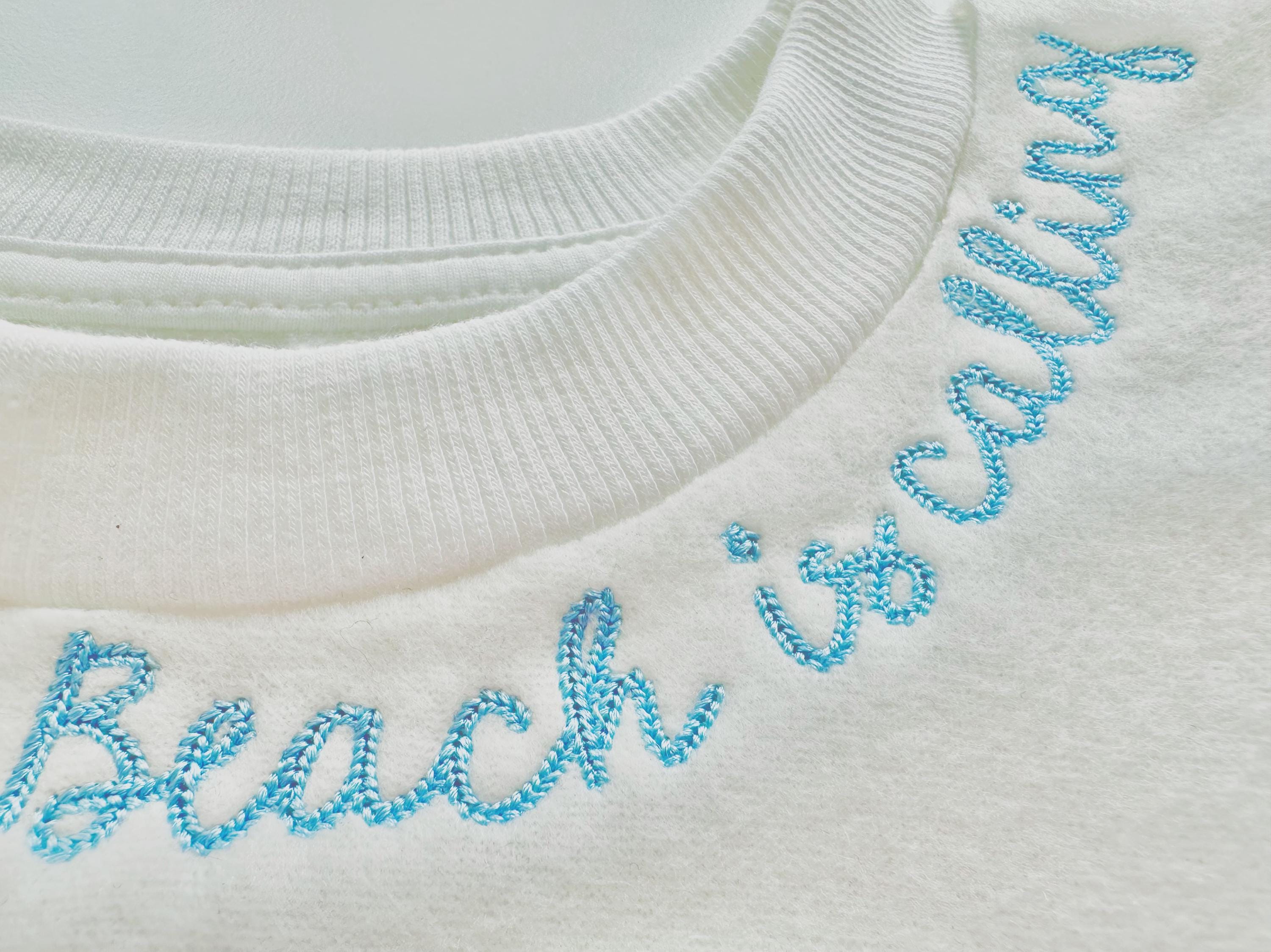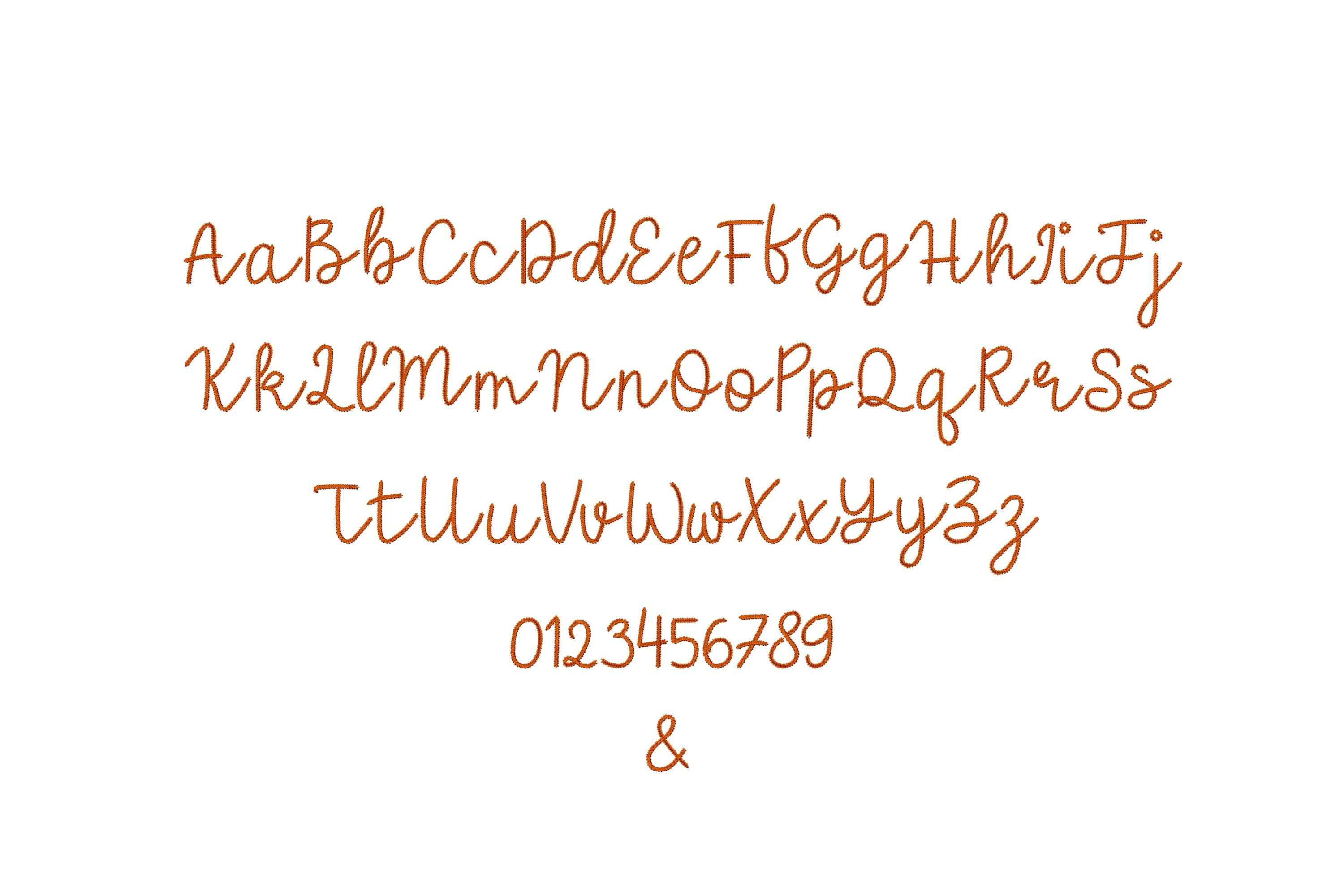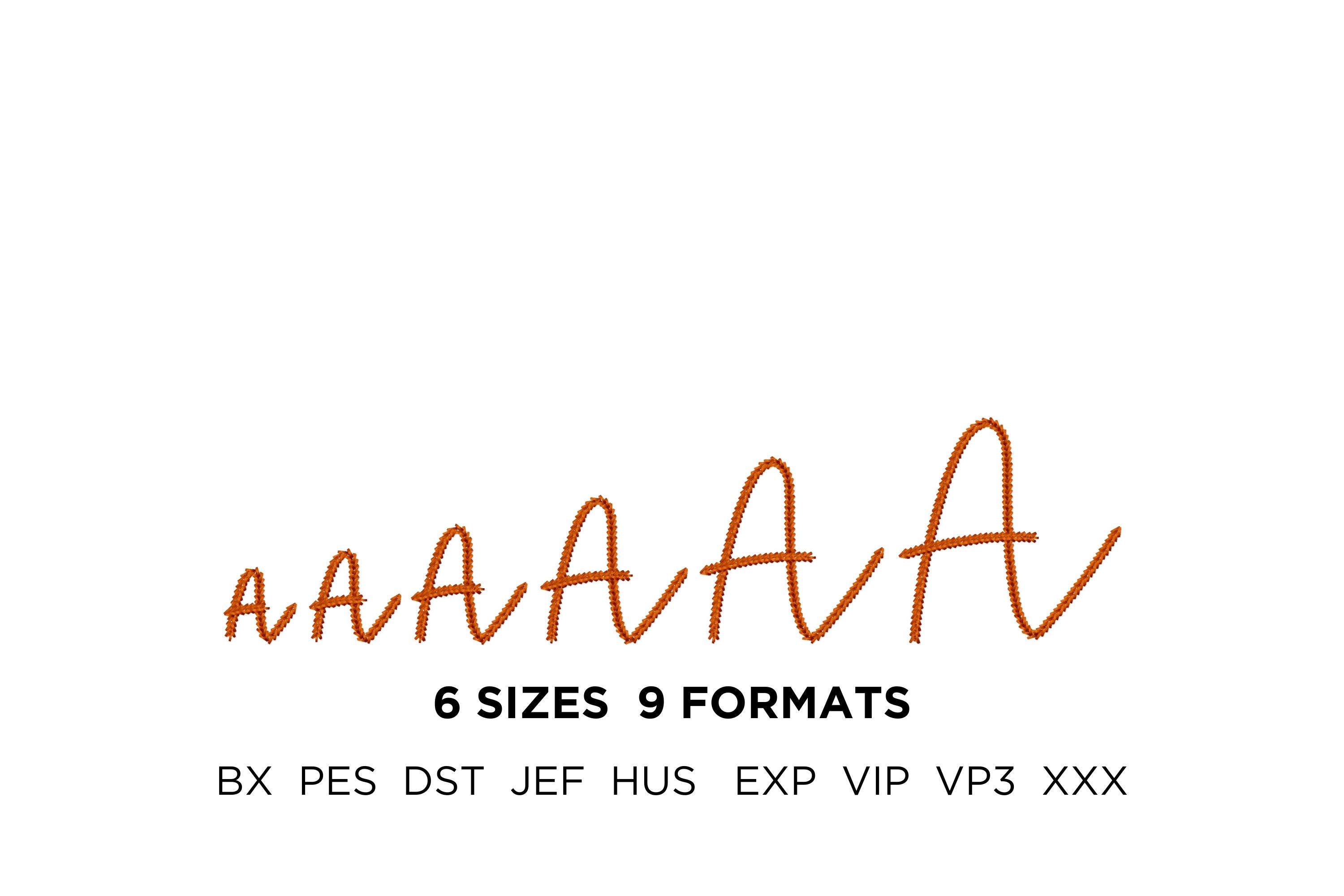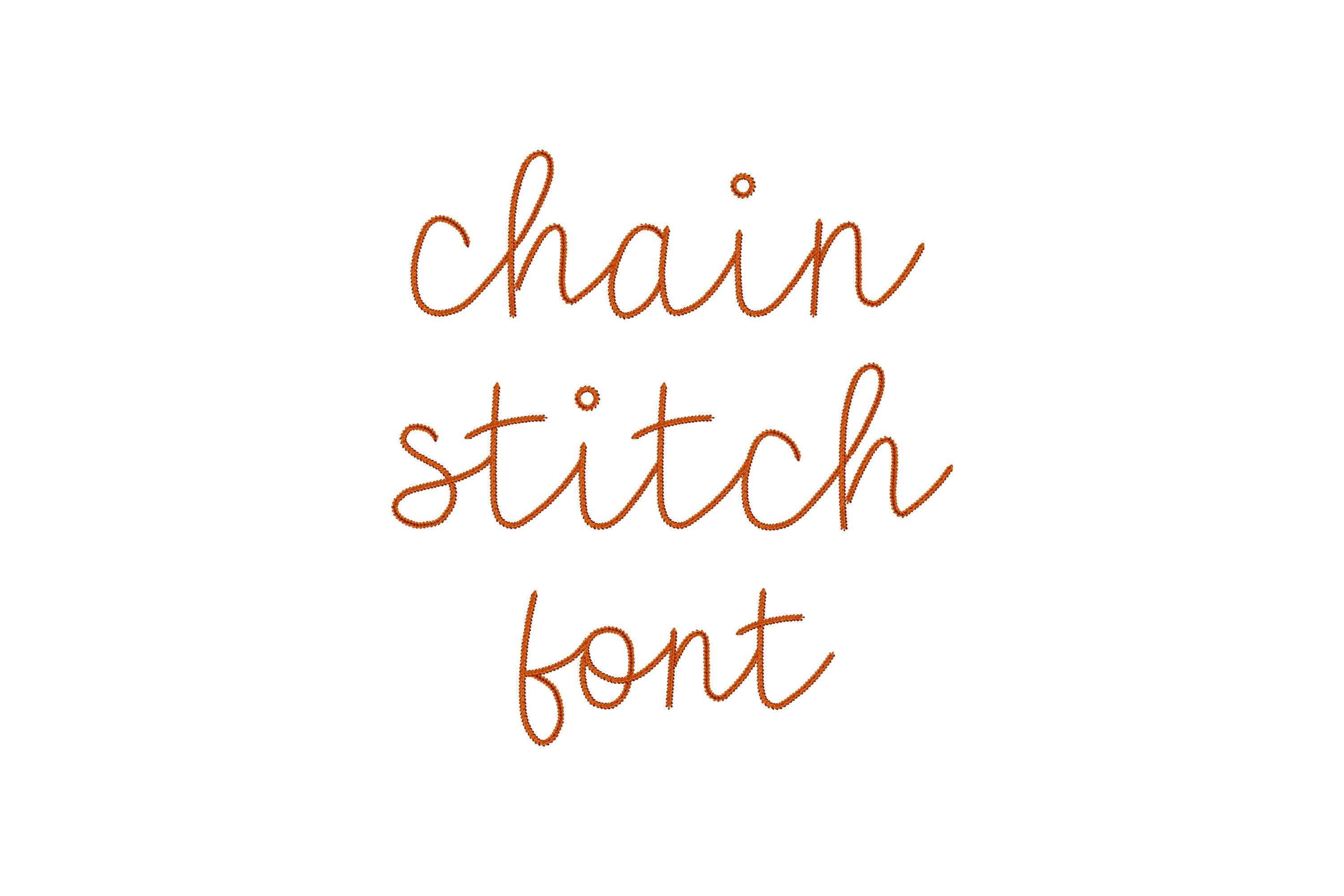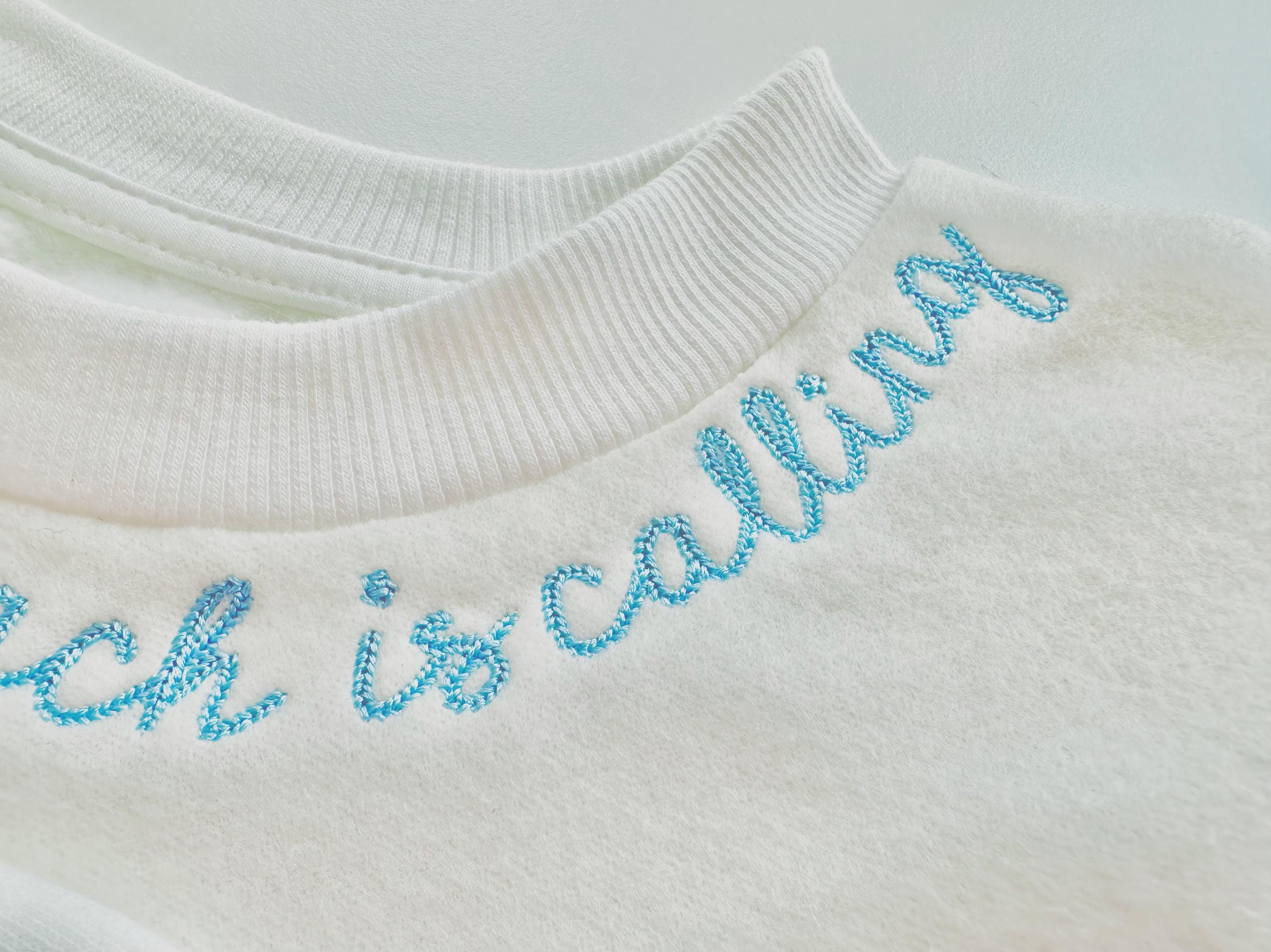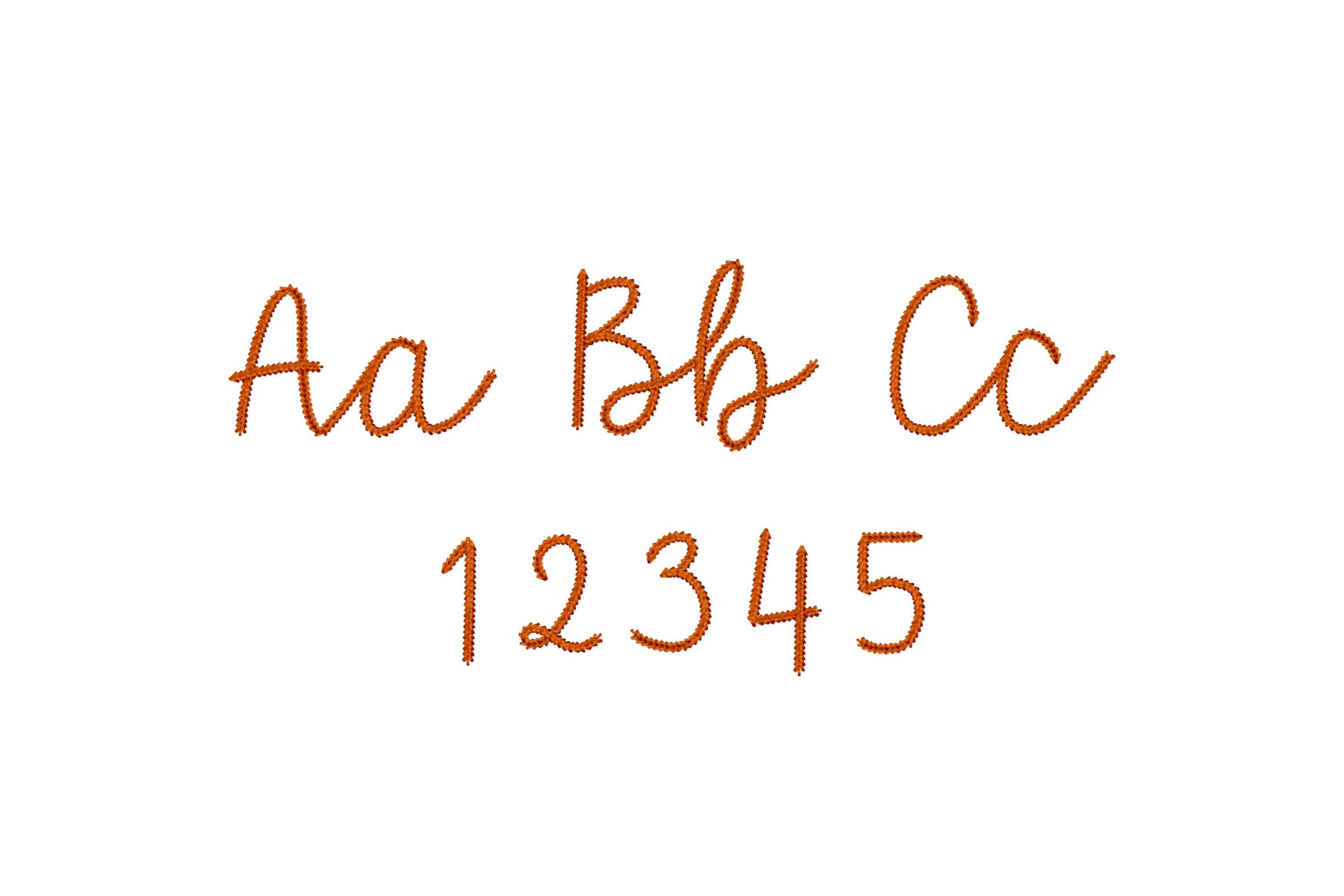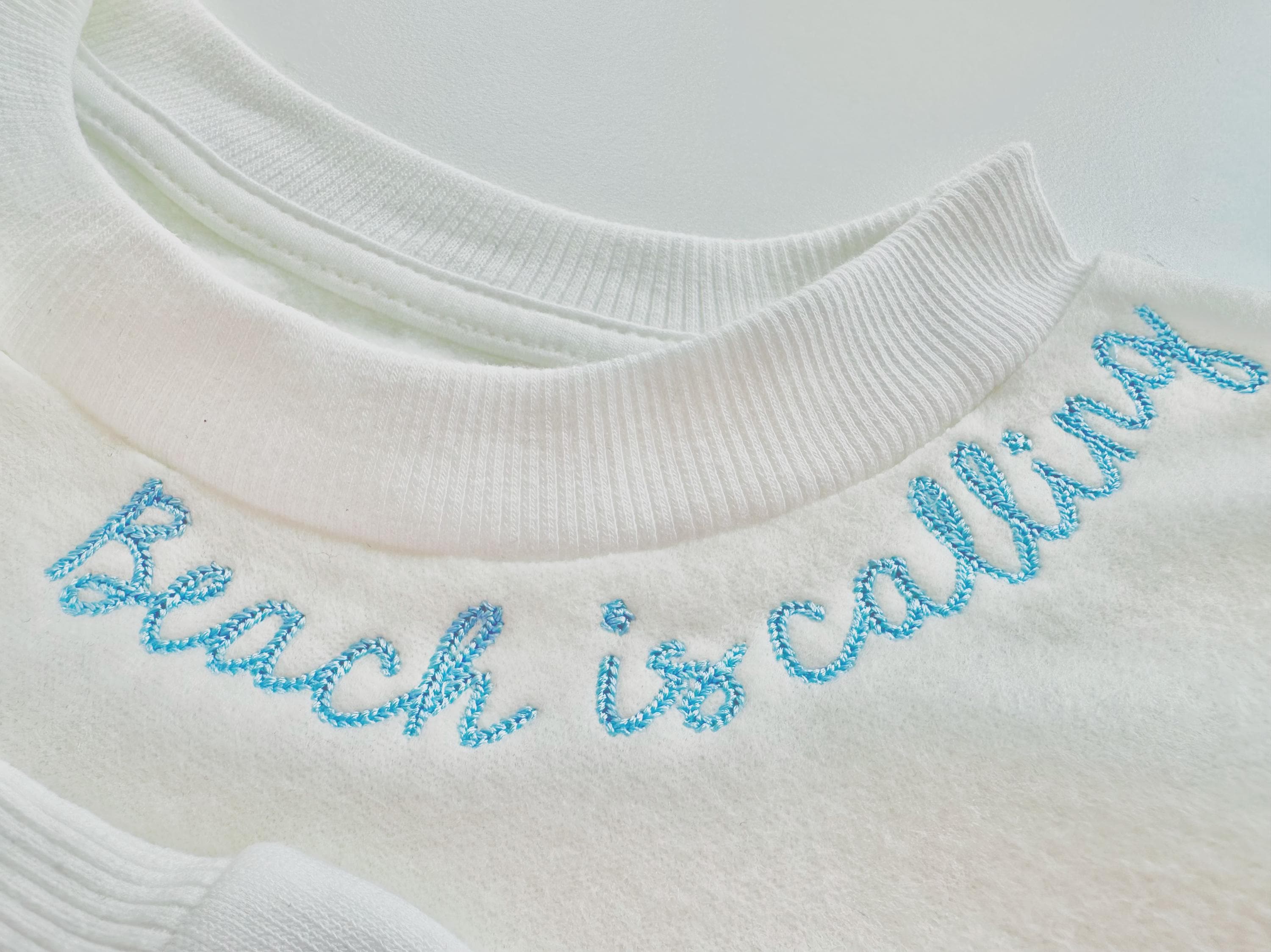
Tiny Chain FONT machine embroidery designs mini sizes 0.6 up to 2 inch handwritten script alphabet Monogram letters Neckline lettering Font, and BX
Entire alphabet uppercase and lowercase letters Aa-Zz, numbers 0-9, and ampersand &.